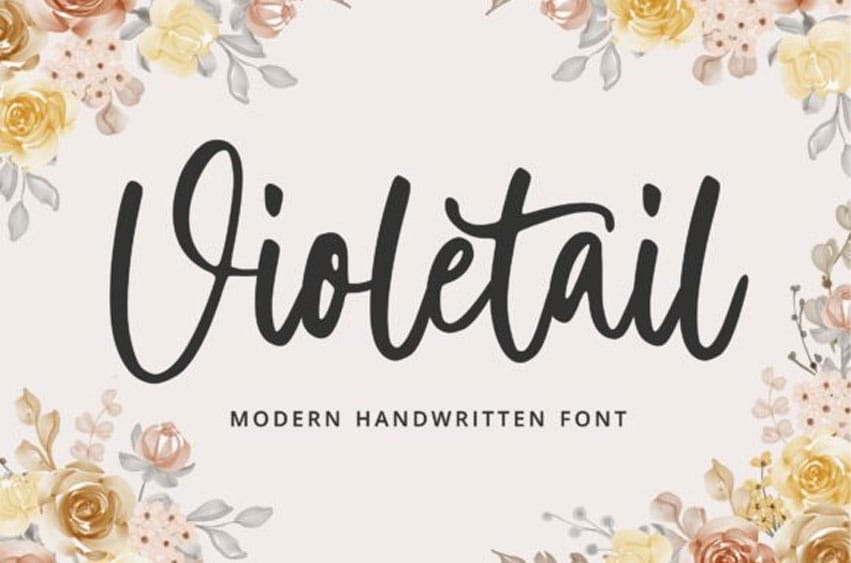
Violetail Modern Font is an elegant and dainty handwritten font that features sweet and delicate swashes.
This original look will appeal to a wide range of crafty ideas, from letterheads and titles to stationery.